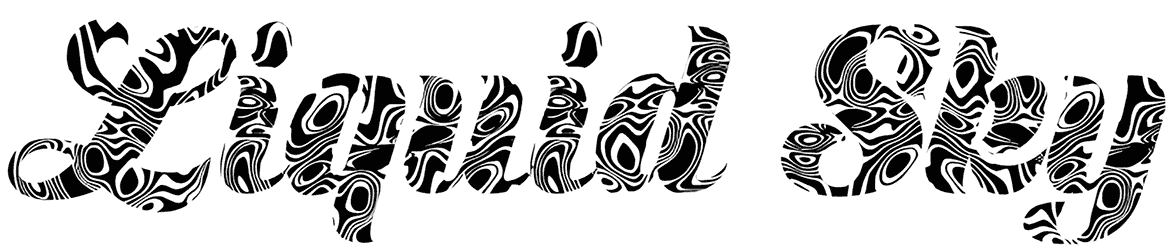
Liquid Sky Font
Liquid Sky is a fancy decorative font that elevates any design with its graceful, flowing strokes and ornate embellishments. Despite lacking numeric characters, the font has a very futuristic appearance, making it ideal for use in design projects such as posters, invitations, and branding materials. It takes you no more than two minutes to give your plain lettering an attractive look. Download Liquid Sky from RB right away if you want to give your creations a dash of elegance!
Three layered fonts.